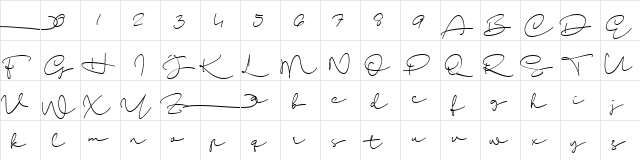
Regular Regular
| Foundry | Walkeren |
| Designer | Awaluddin Syarif |
Regular is a composed and adaptable typeface that performs quietly and consistently across a wide range of design contexts.